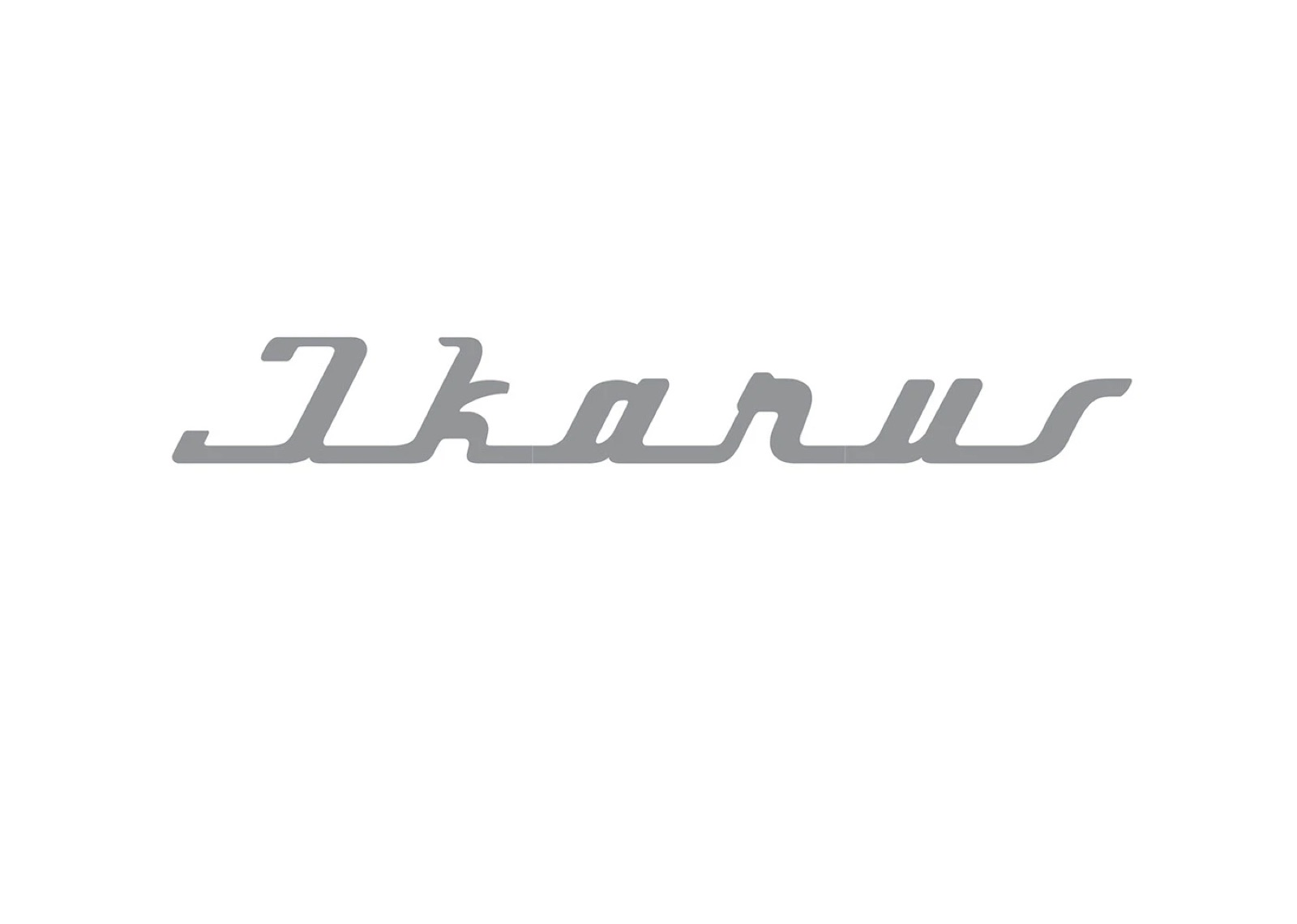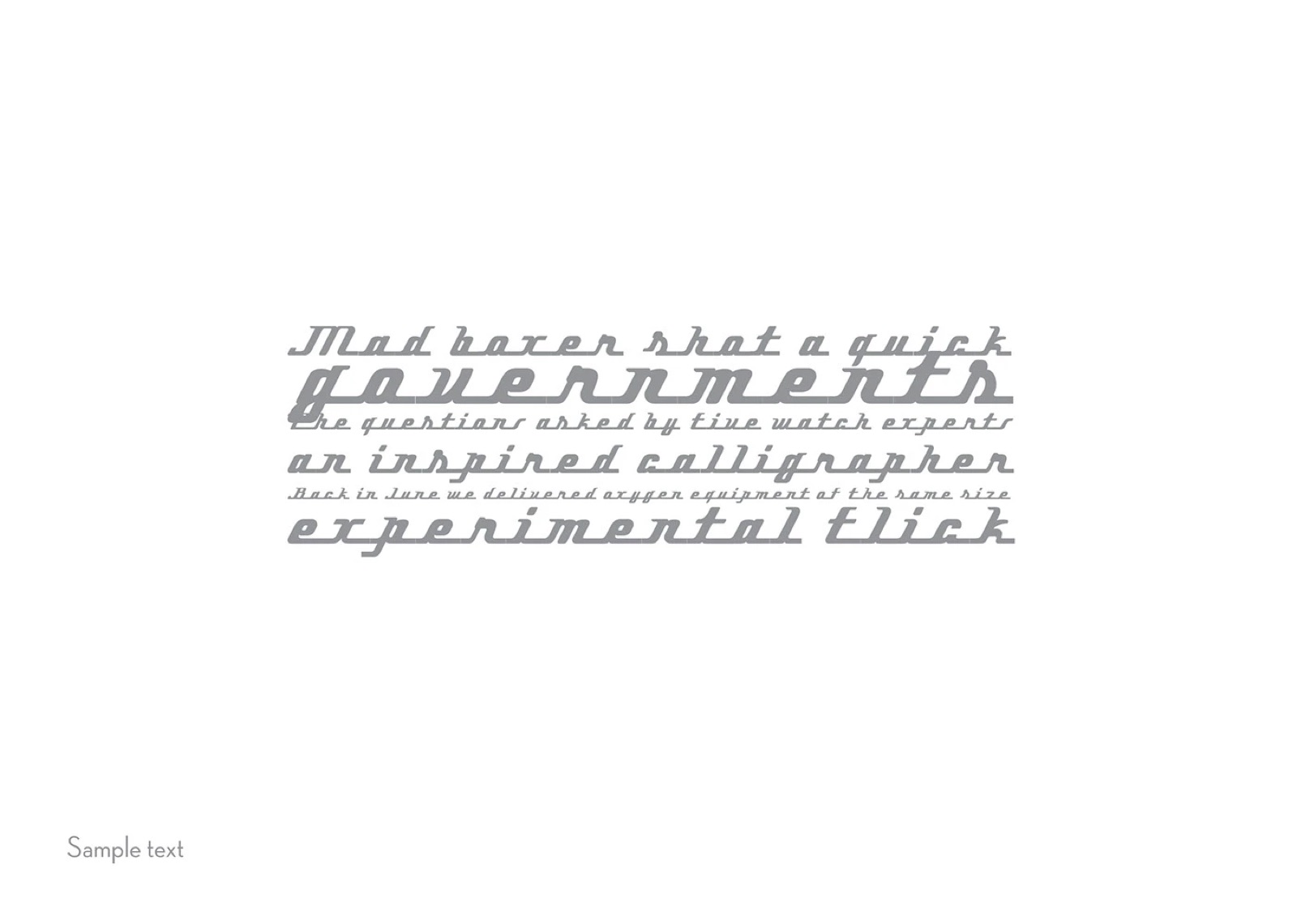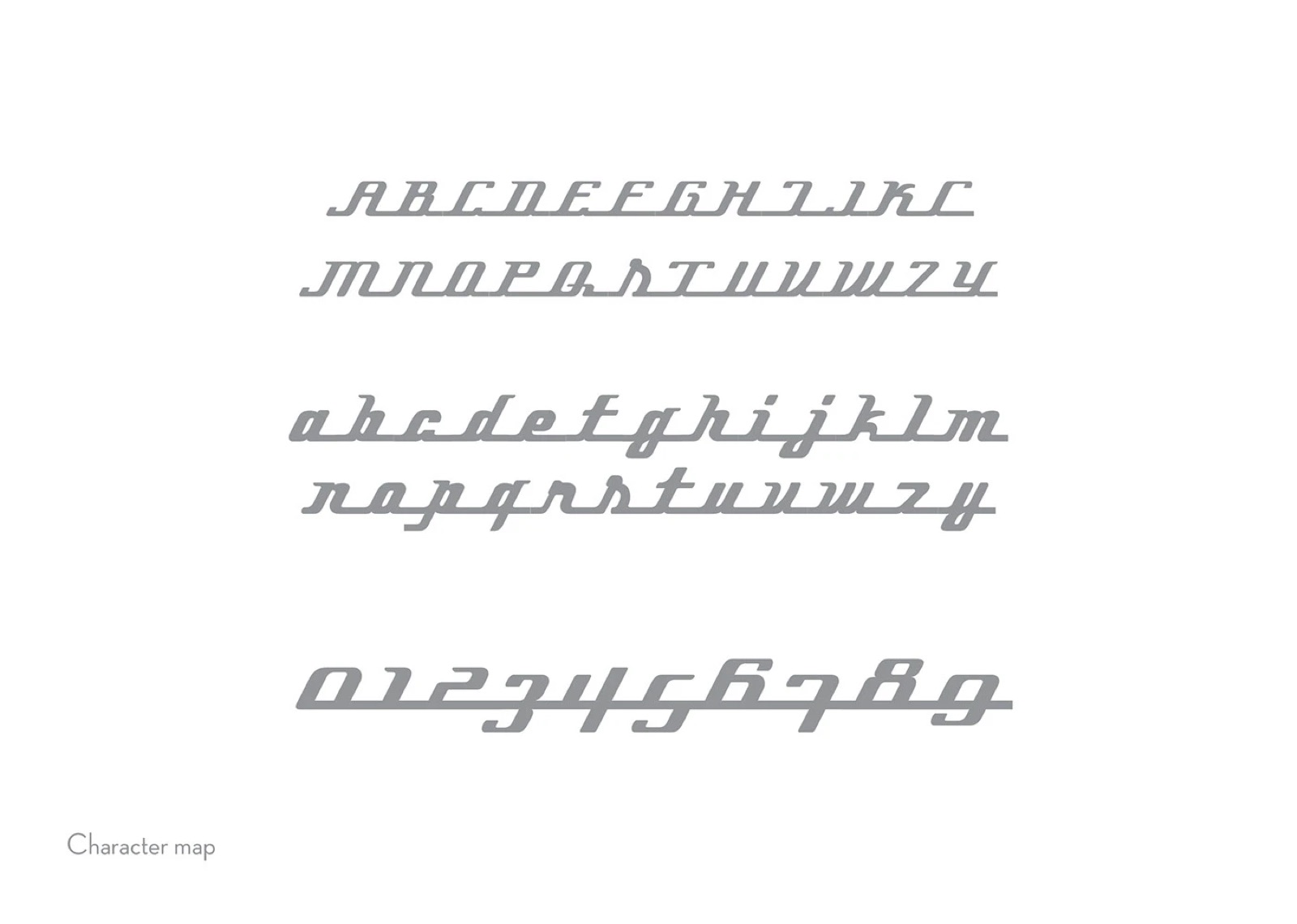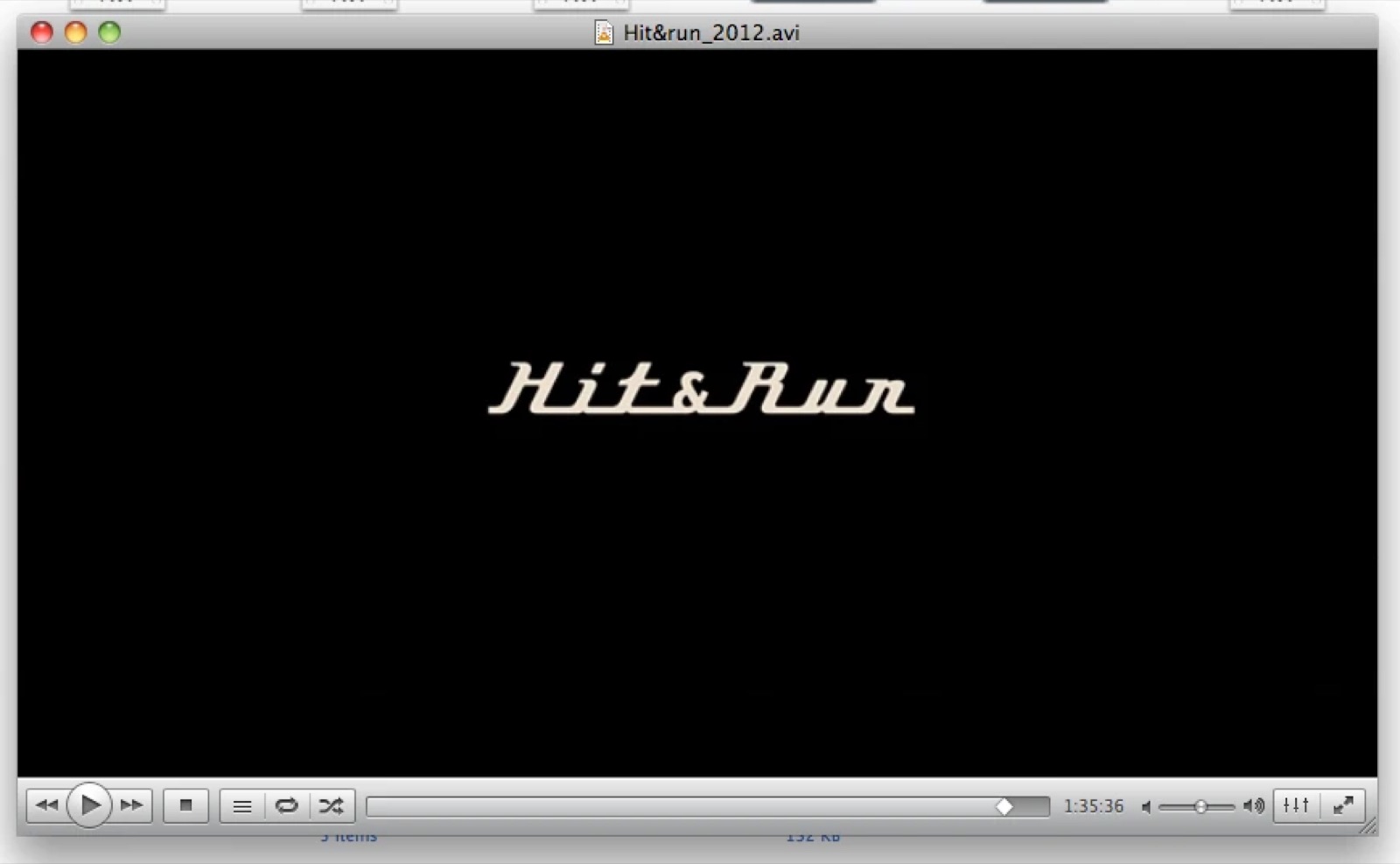
IKARUS
Typeface Ikarus is based on a logo of the city bus company Ikarus.
There have been made 3 different hand-drawed logo’s with very slight differences. This typeface was created knowing only one cap and four lowercase letters. Ikarus font contains 167 characters, including beginning and end shapes, which helps to make slight variety in bigger ammount of text. Continous shape on the bottom of the letters create integral letter combinations. 2009